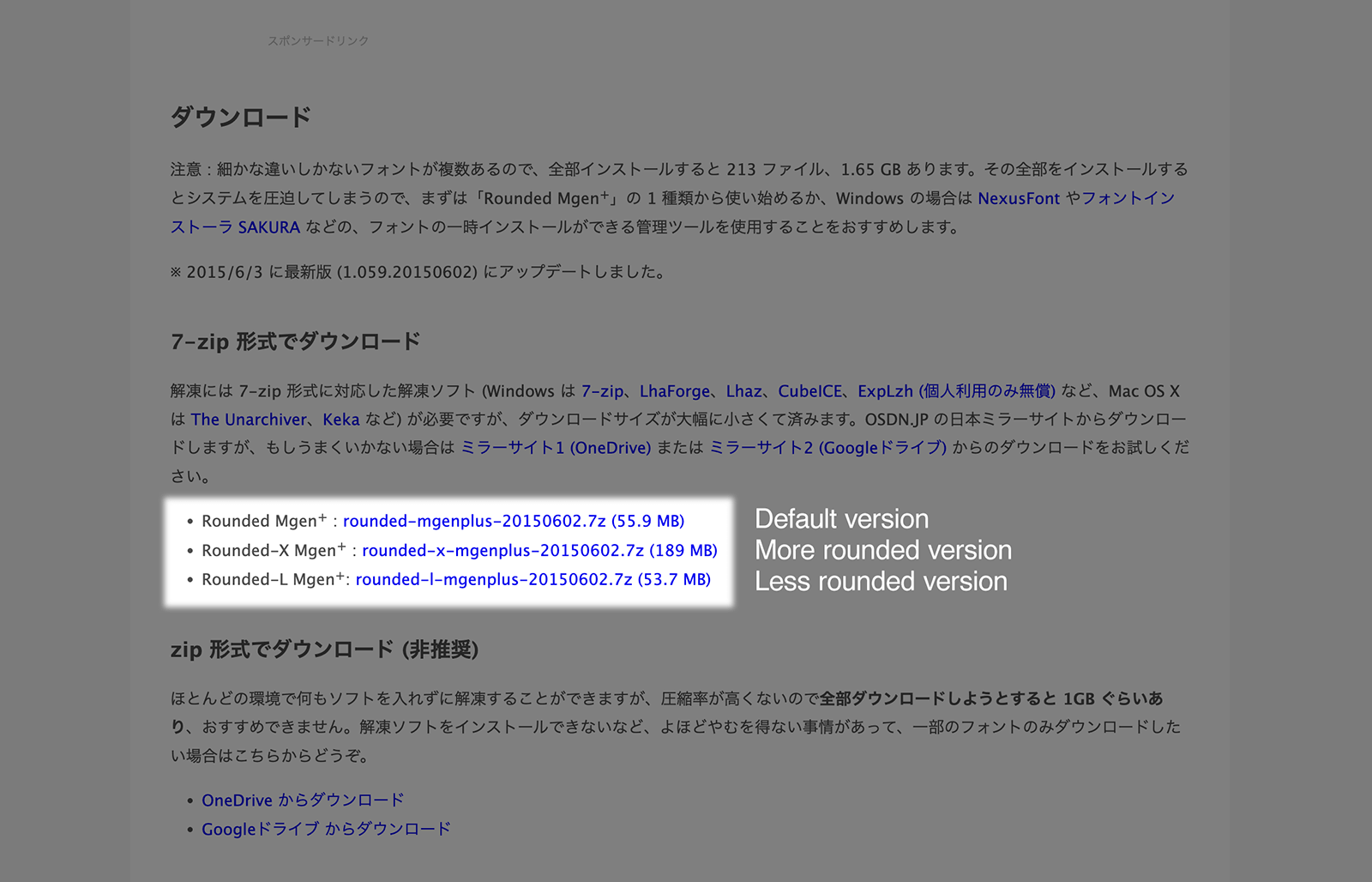
Rounded Mgen+
Rounded Mgen+ is a free gothic font that you can download. According to the site Jikasei, the font is actually combination of characters from Source Han Sans and M+ Outline, then made it rounded. It comes with 7 weights from thin to black.